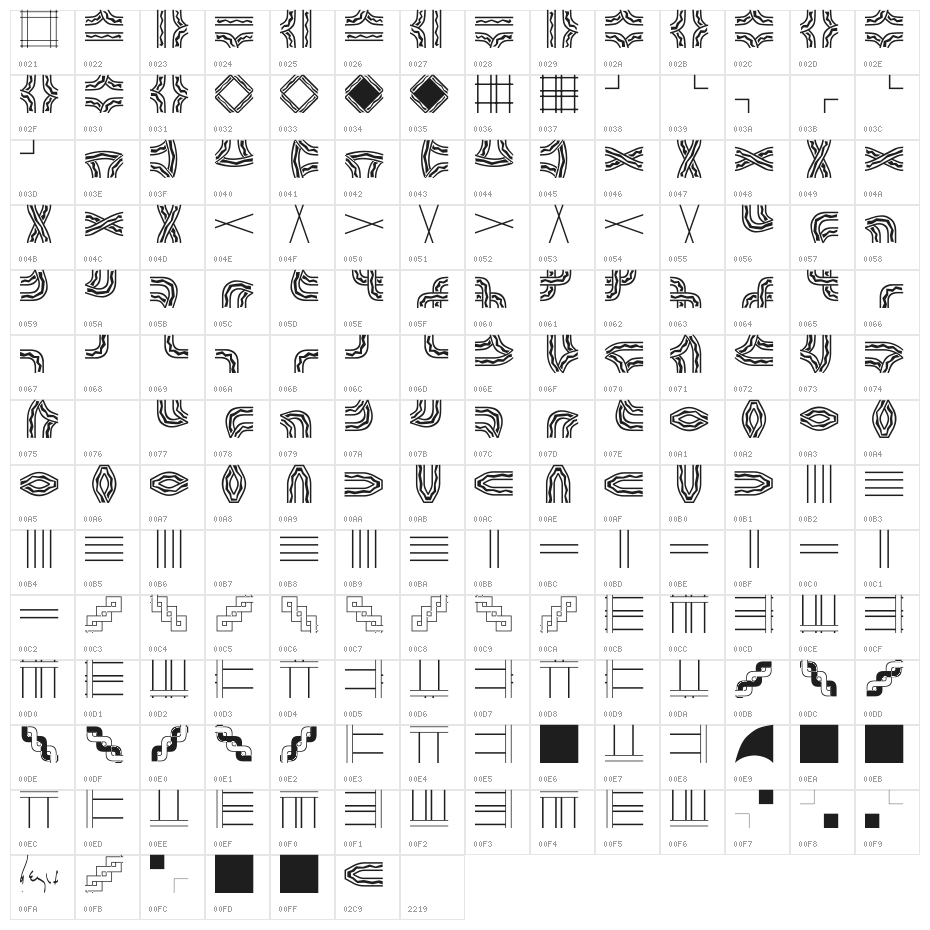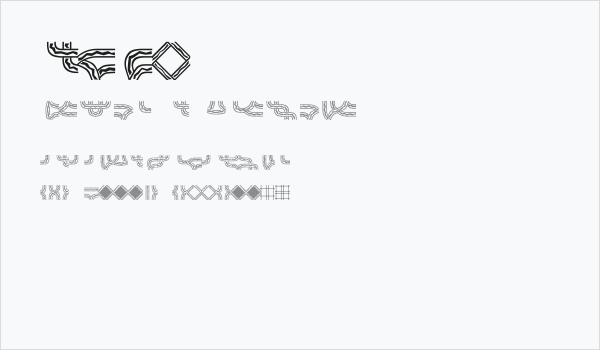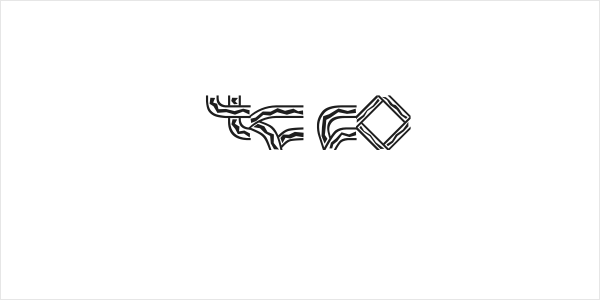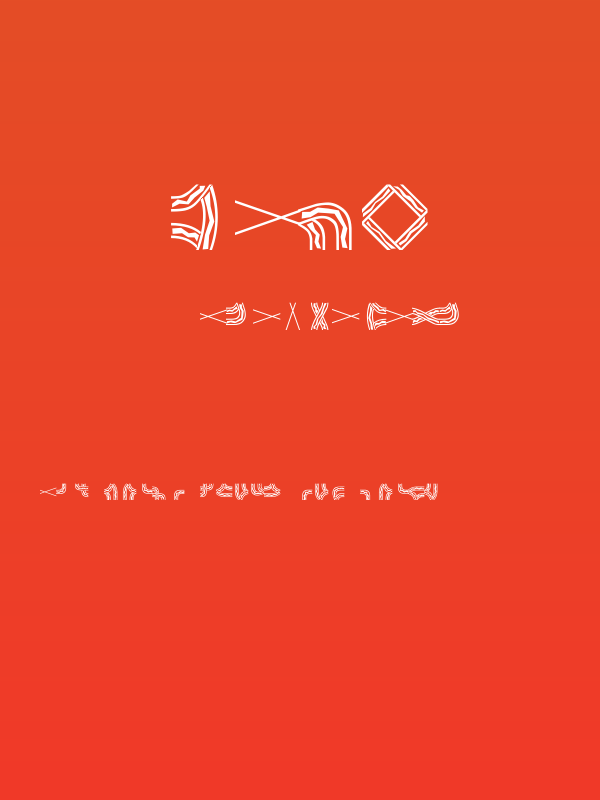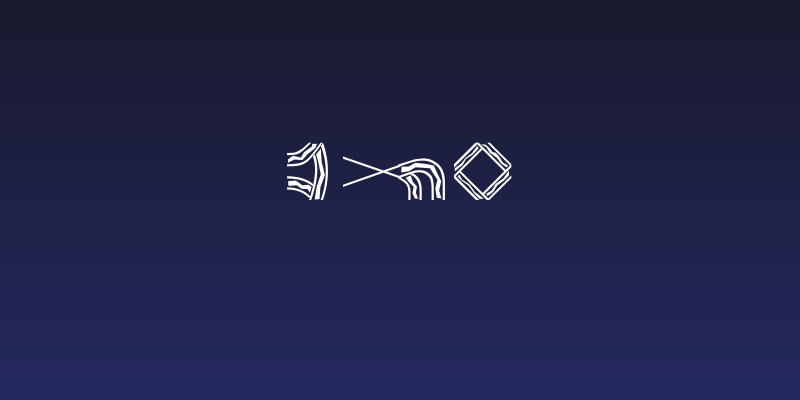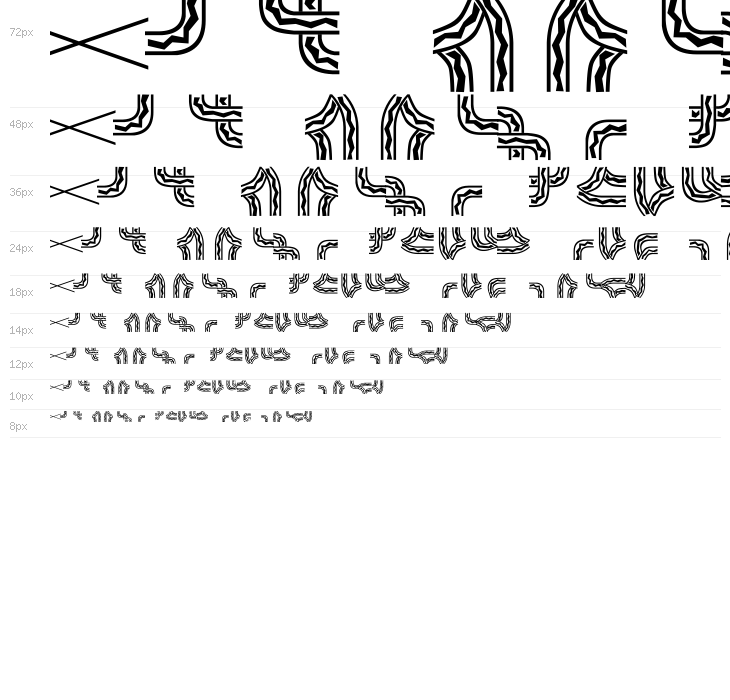
epx2 Font
epx2 Description
This design features a highly decorative and abstract style, with intricate patterns and complex shapes that resemble a fusion of tribal and modern art. The characters are composed of bold, intertwining lines that create a sense of movement and dynamism. The overall appearance is striking and unconventional, making it more of an artistic expression than a traditional font. The elements are symmetrical and repetitive, contributing to a cohesive yet intricate visual experience.
Use CaseArtistic projects, decorative elements, branding.
Proposed ProjectsIdeal for artistic projects, abstract art pieces, or as a decorative element in graphic design. It could also be used in branding for creative industries or as a unique pattern in fashion design.